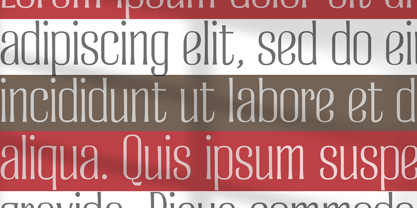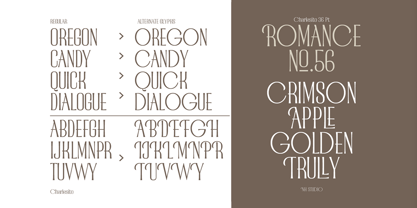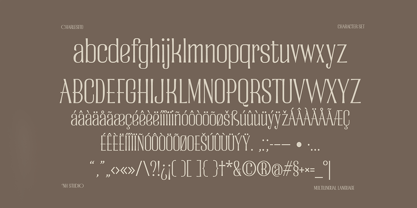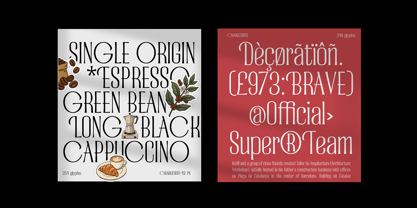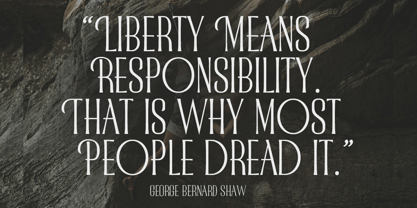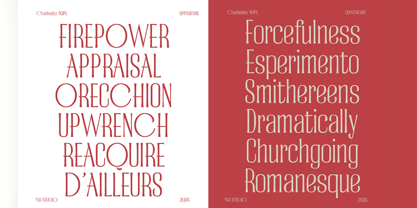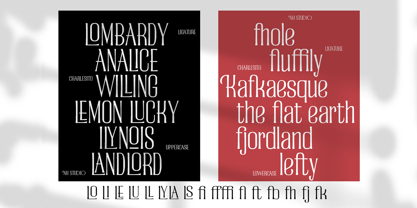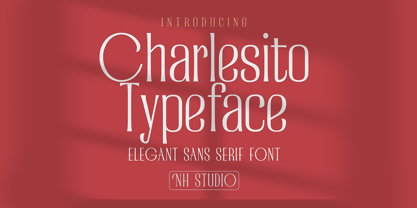
Charlesito
von NH TypeStudio
Die Schriftfamilie Charlesito wurde von Hadi Nasrul entworfen und von NH TypeStudio veröffentlicht. Charlesito enthält 1 Stile. Mehr über diese Familie
Charlesito is a modern and stylish sans serif font. With its modern design and ligature features, this font has become a favorite on the market. Charlesito is the perfect choice for cosmetics, beauty, brands, logos, wordmarks, magazines, designs, books, publications, branding, brand names, business cards, social media, classy designs, newspapers, branding, beauty, and other projects. Charlesito is here to elevate the quality of your designs.
Designer: Hadi Nasrul
Foundry: NH TypeStudio